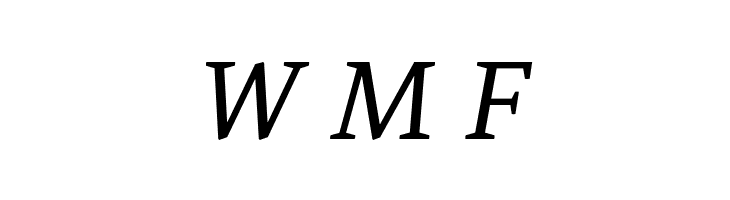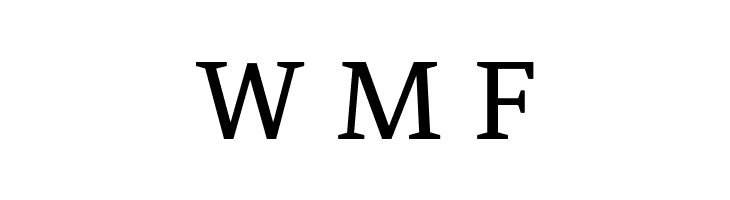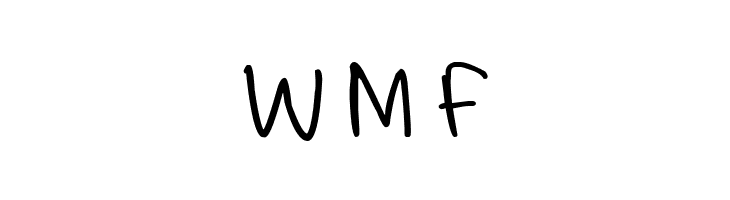
• Adam Bold
A modern, bold sans-serif font with geometric influences and excellent readability.
• adam handwriting test
• Adam Light
A clean, geometric font with a modern and minimalistic style.
• Adam Medium
A modern, geometric typeface with clean lines and balanced proportions.
• adam warren 0.2
A bold, handwritten-style font with dynamic and playful characteristics.
• adam warren 0.2 Bold
A bold, handwritten font with dynamic strokes and a playful style.
• adam warren 0.2 Bold Italic
A bold, italic font with a dynamic, handwritten style.
• Adam Warren pro
A bold, dynamic handwritten font with an energetic and informal style.
• Adam Warren pro Bold
A bold, handwritten-style font with a dynamic and energetic appearance.
• Adam Warren pro Bold Italic
A bold, handwritten font with a dynamic, italic style.
• Adam-s-Font
• ADAM.CGPRO
A clean, geometric typeface with a modern aesthetic and consistent stroke width.
• AdamantBG
A modern serif font with clean lines and versatile applications.
• AdamantBG-Bold
A bold serif font with strong strokes and sharp serifs, ideal for impactful designs.
• AdamantBG-BoldItalic
A bold and italic font with a dynamic slant and elegant curves.
• AdamantBG-Italic